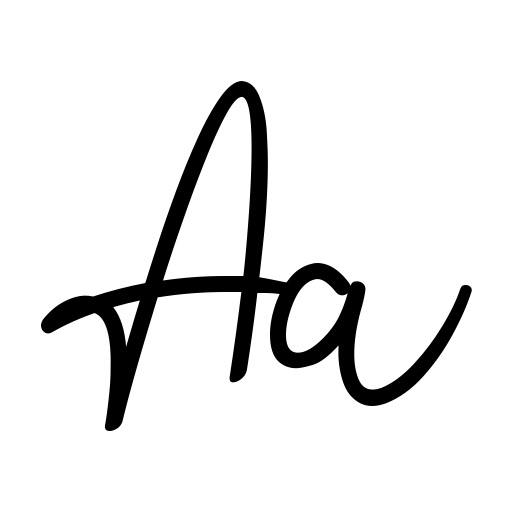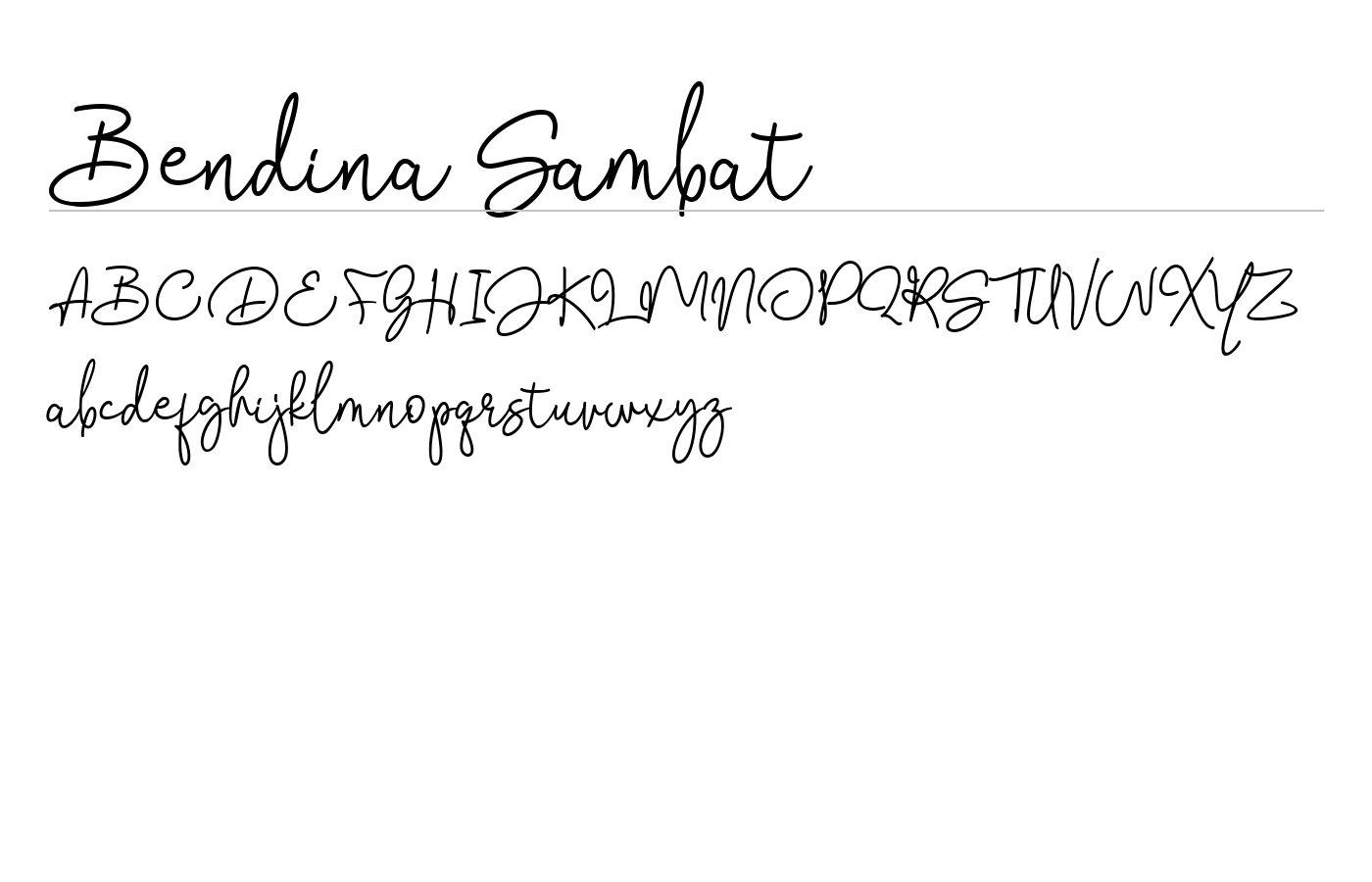
Bendina Sambat is a playful and elegant handwritten script font with a light, airy feel and smooth, flowing lines. Its delicate strokes and slightly irregular letterforms give it a natural, personal touch perfect for creative branding, invitations, and casual editorial use. This font works well where a warm, friendly, and approachable style is desired without sacrificing legibility.
Bendina Sambat Font
About Bendina Sambat Font
| Font family | Bendina Sambat Font |
| Designer | Aldedesign 2019 (Alde Saputro) |